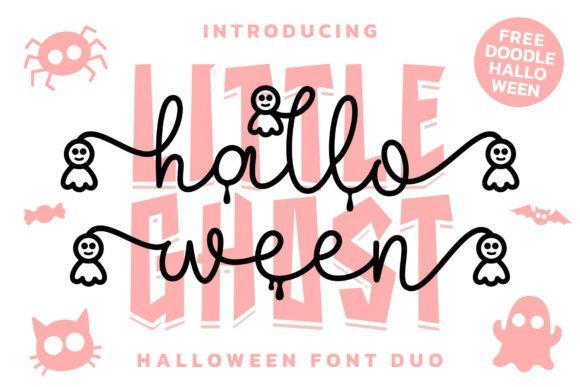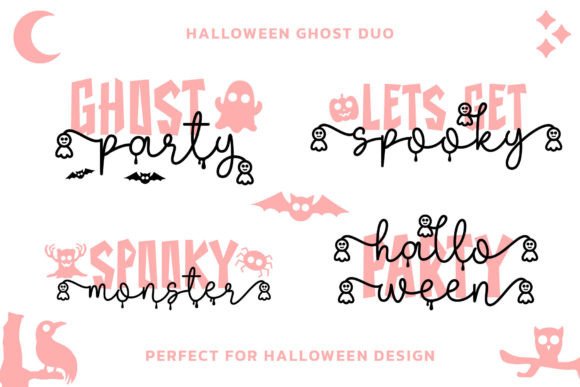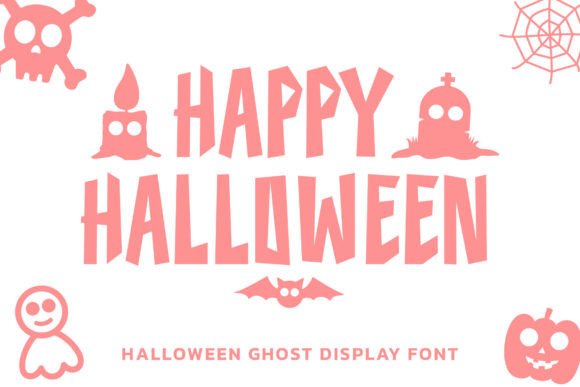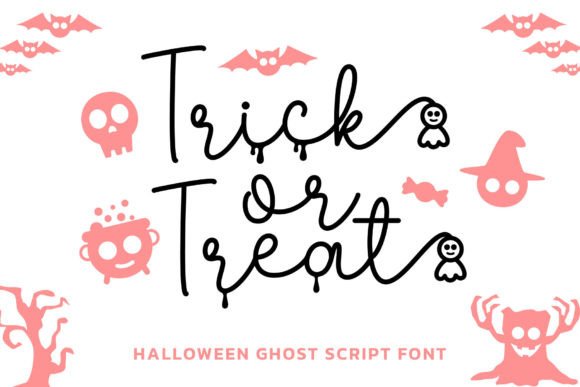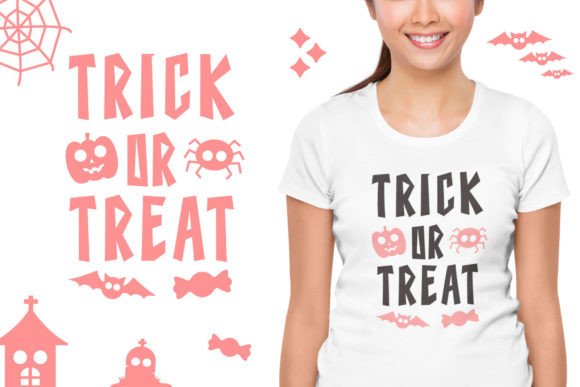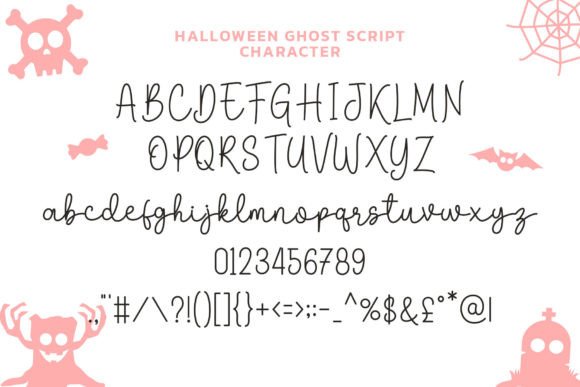
Celebrating the Spooky Season with Halloween Ghost Duo Font
As the sun sets on a crisp autumn evening, the anticipation builds – Halloween is just around the corner. The thrill of creating spooky decorations, crafting eerie invitations, and conjuring up ghostly graphics is what drives designers to get creative. It’s during this time that the right font can make all the difference, setting the tone for a hauntingly beautiful design.
Enter the Halloween Ghost Duo Font, a delightful pairing of a script monoline and a display font that will transport your designs to a world of whimsy and wonder. This enchanting font duo is the perfect tool for designers looking to add a touch of magic to their Halloween creations, from party invitations to social media graphics.
Halloween Ghost Duo Font Key Features
- Size: The font size is designed to be large and bold, making it perfect for use in titles, headings, and other prominent text elements.
- Unique Characteristics: The font features a unique and spooky design, with ghostly silhouettes and eerie textures that evoke the spirit of Halloween.
- Font Style: The font is available in a bold and playful style, making it suitable for use in a variety of design projects, from horror-themed graphics to festive decorations.
- Legibility: Despite its bold design, the font remains highly legible, ensuring that text remains clear and easy to read even at large sizes.
Halloween Ghost Duo Font Review
Overall, I found the Halloween Ghost Duo Font to be a unique and intriguing addition to any project. ✨ The duo design of two ghosts floating together adds a playful touch, making it perfect for Halloween-themed designs, parties, or even spooky decorations. ✨ The font is also highly customizable, allowing users to adjust the ghost’s size, transparency, and even the background color.
However, there are some limitations to consider. ⚠️ The font is quite basic, lacking the level of detail and intricacy that some designers might be looking for. Additionally, the ghost’s design can be somewhat generic and may not stand out in a crowded design space. ⚠️ The font also seems to be more suited for digital designs, as the ghost’s transparency can make it difficult to print well.
Pros and Cons:
- ✨ Unique and playful design
- ✨ Highly customizable
- ⚠️ Basic design may lack detail and intricacy
- ⚠️ Ghost design may be too generic
- ⚠️ Not ideal for print designs due to transparency
In conclusion, the Halloween Ghost Duo Font is a fun and creative addition to any design project. While it may have its limitations, it’s perfect for those looking to add a playful touch to their designs. With some careful consideration and customization, this font can be a real showstopper.
For the most effective use, pair the font with dark, muted colors and bold lines to create a spooky atmosphere.
For a unique effect, use the font in combination with layered textures and eerie lighting to create a haunting atmosphere.
For a professional look, pair the font with simple, yet bold graphics and minimal backgrounds to create a striking design.
The Halloween Ghost Duo Font is ideal for:
- Haunted house invitations
- Spooky party decorations
- Horror movie posters
- Creepy social media graphics